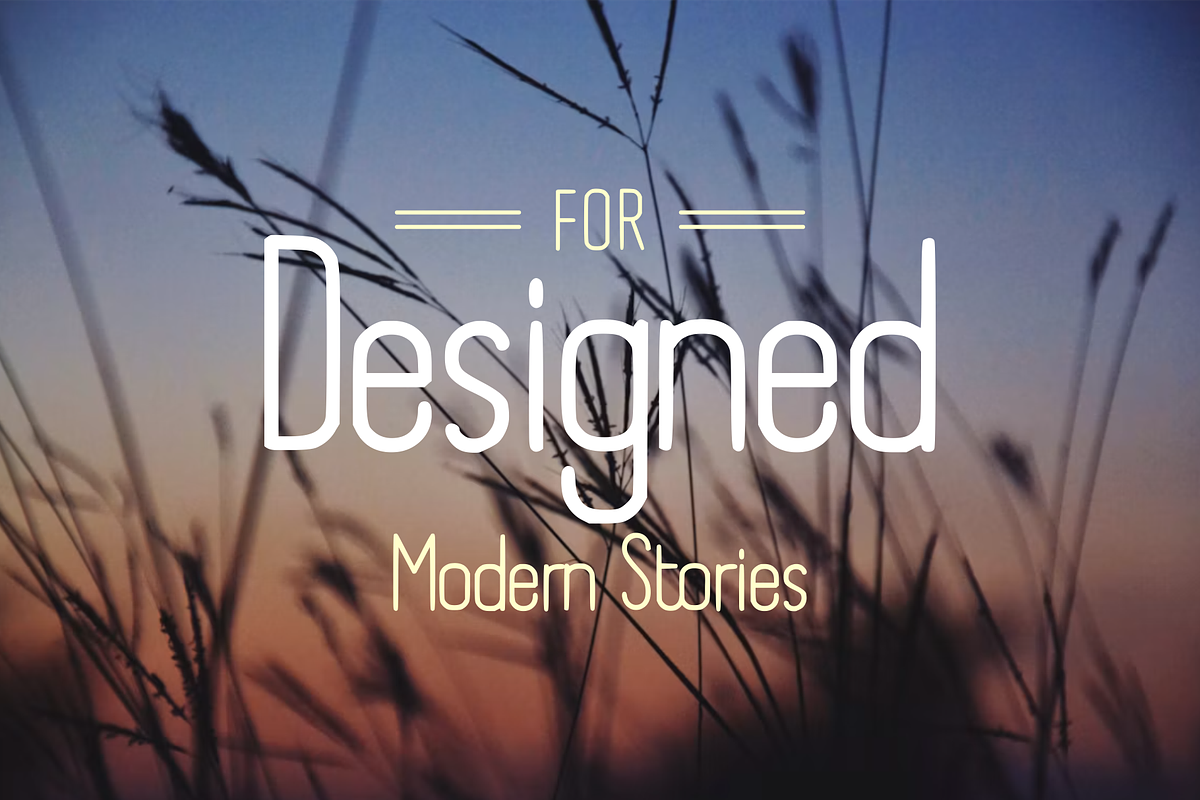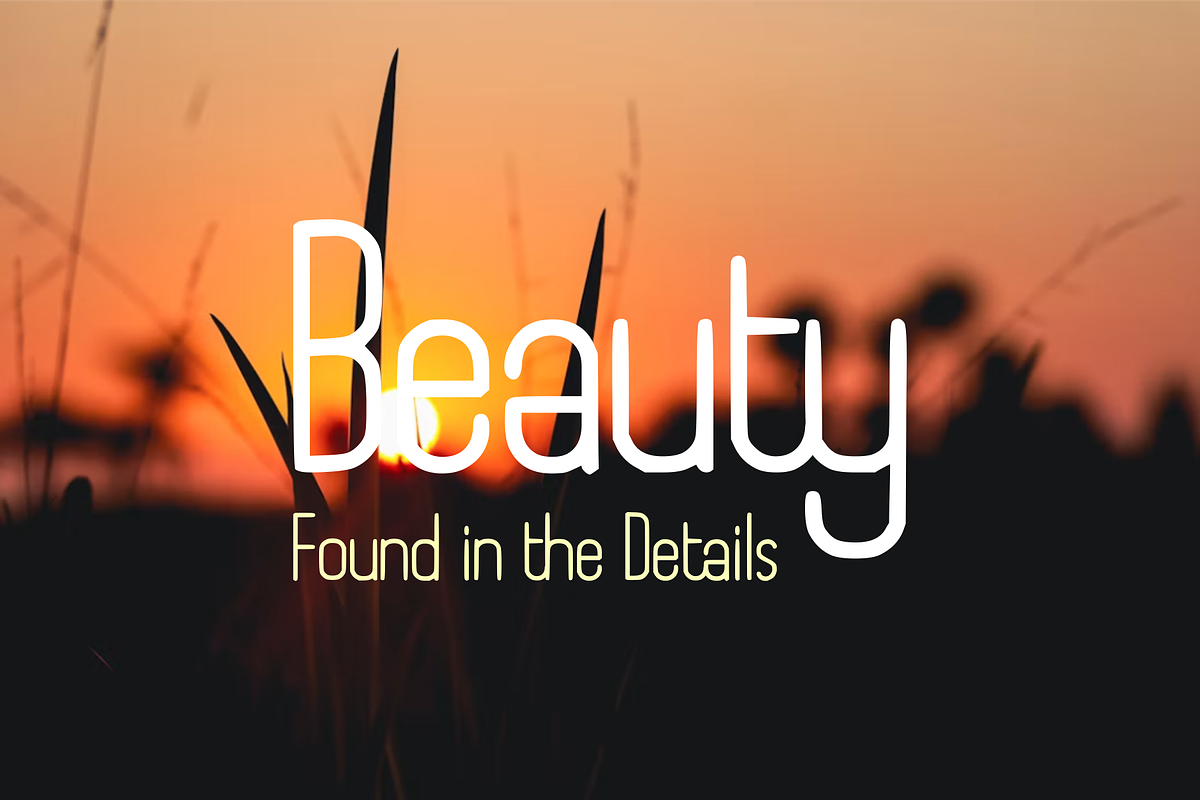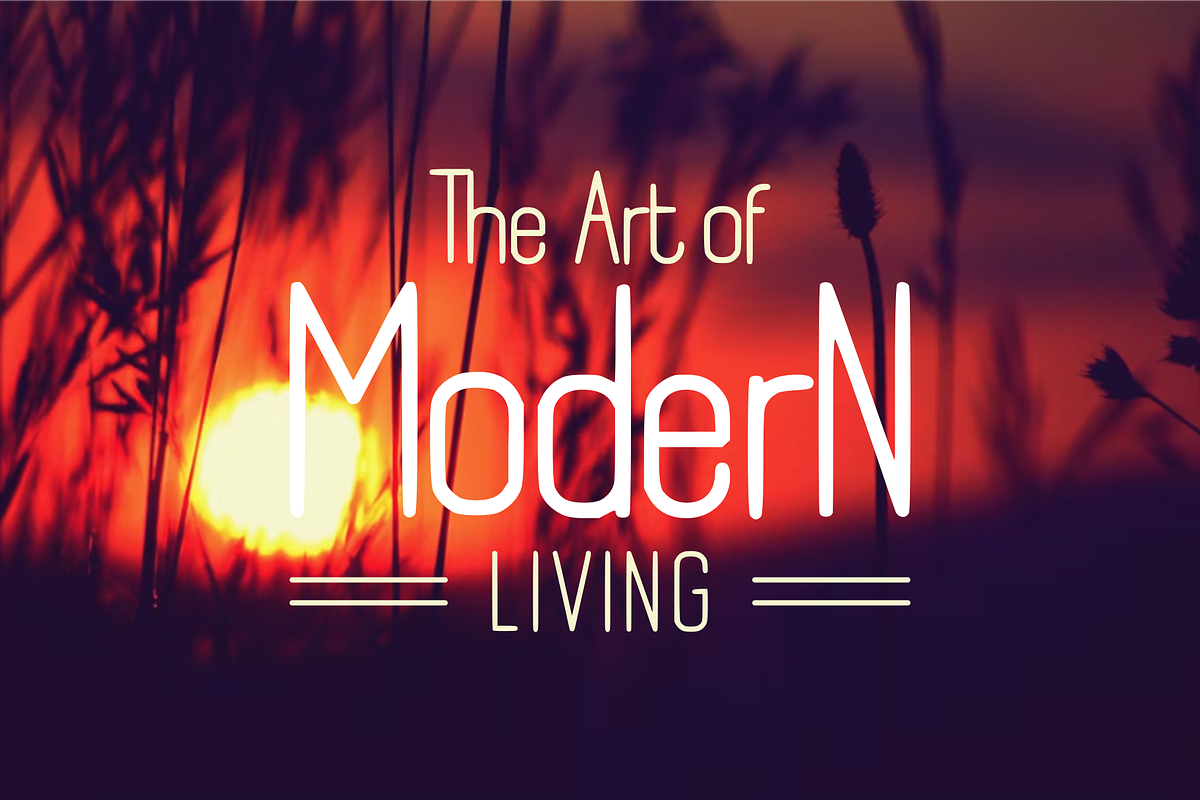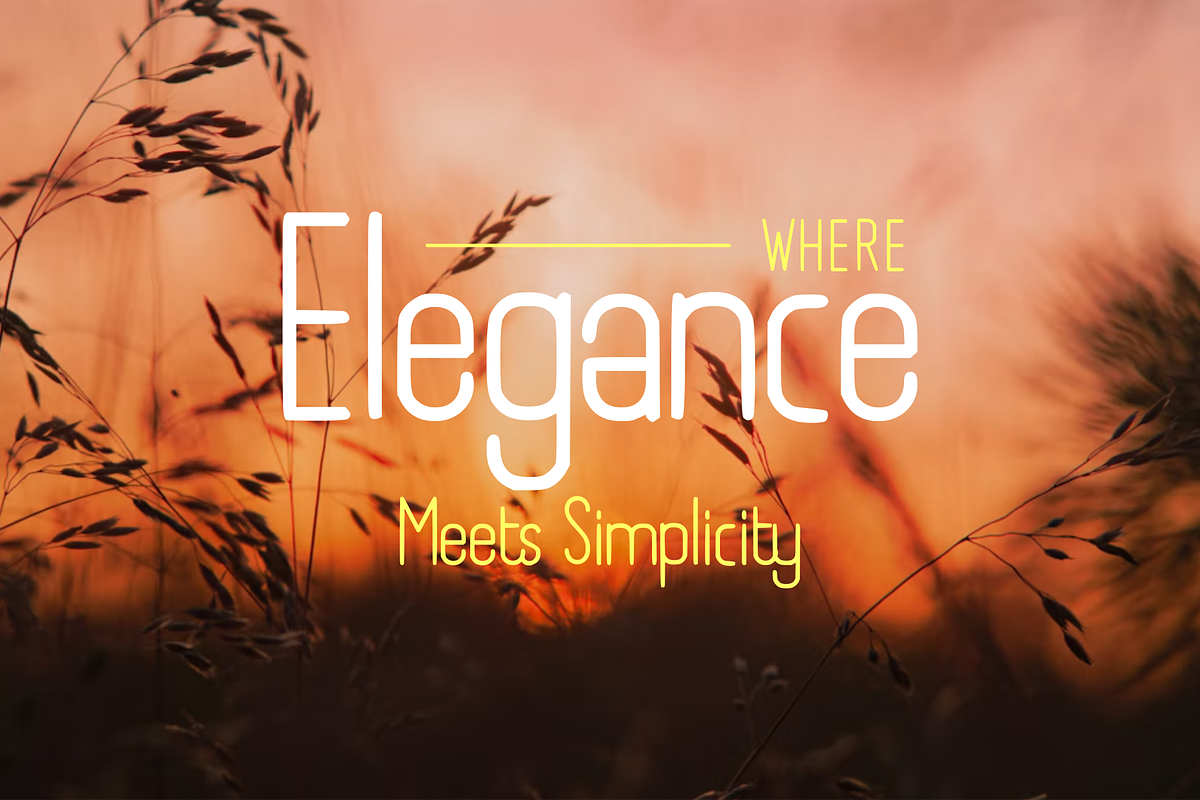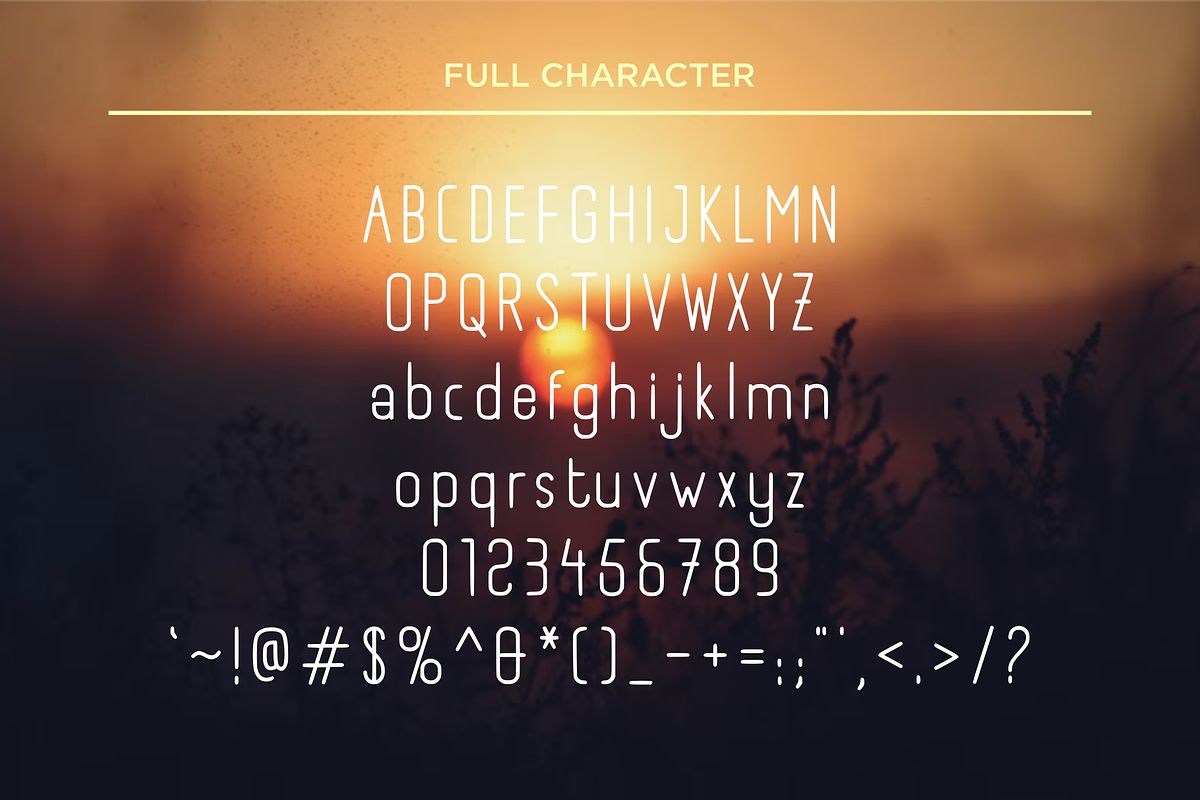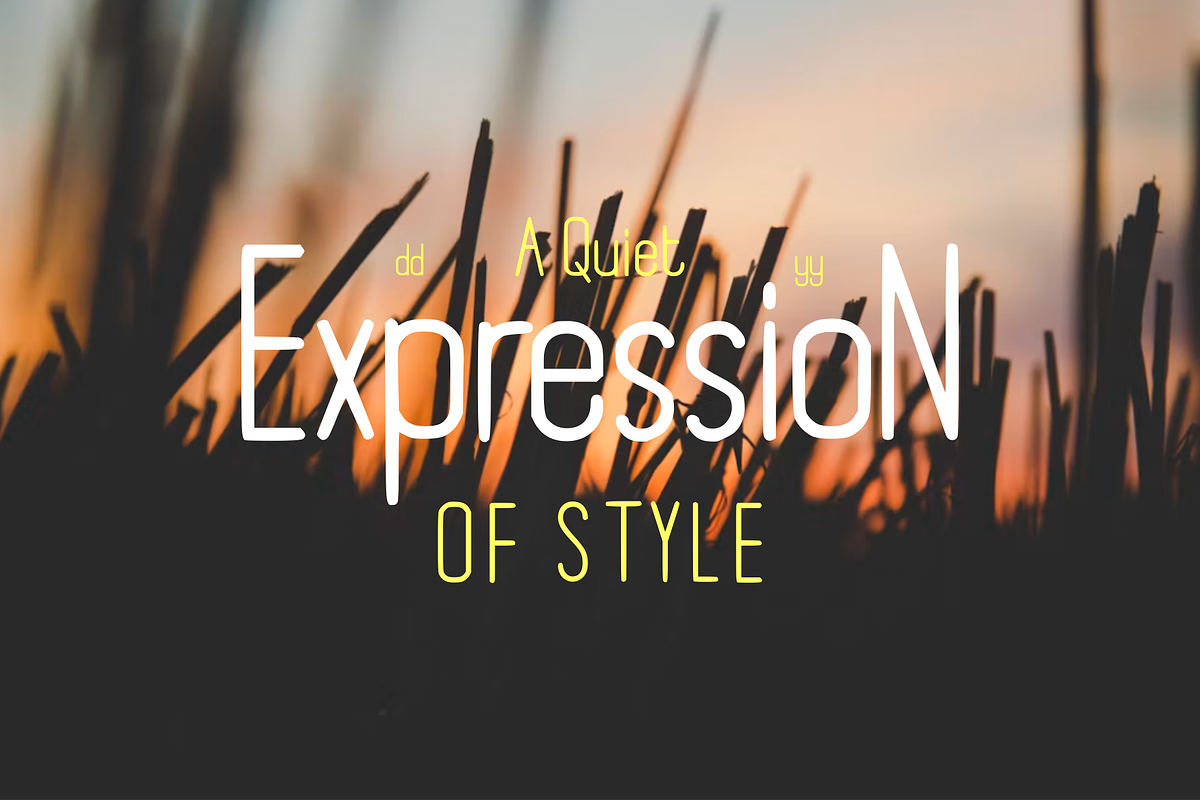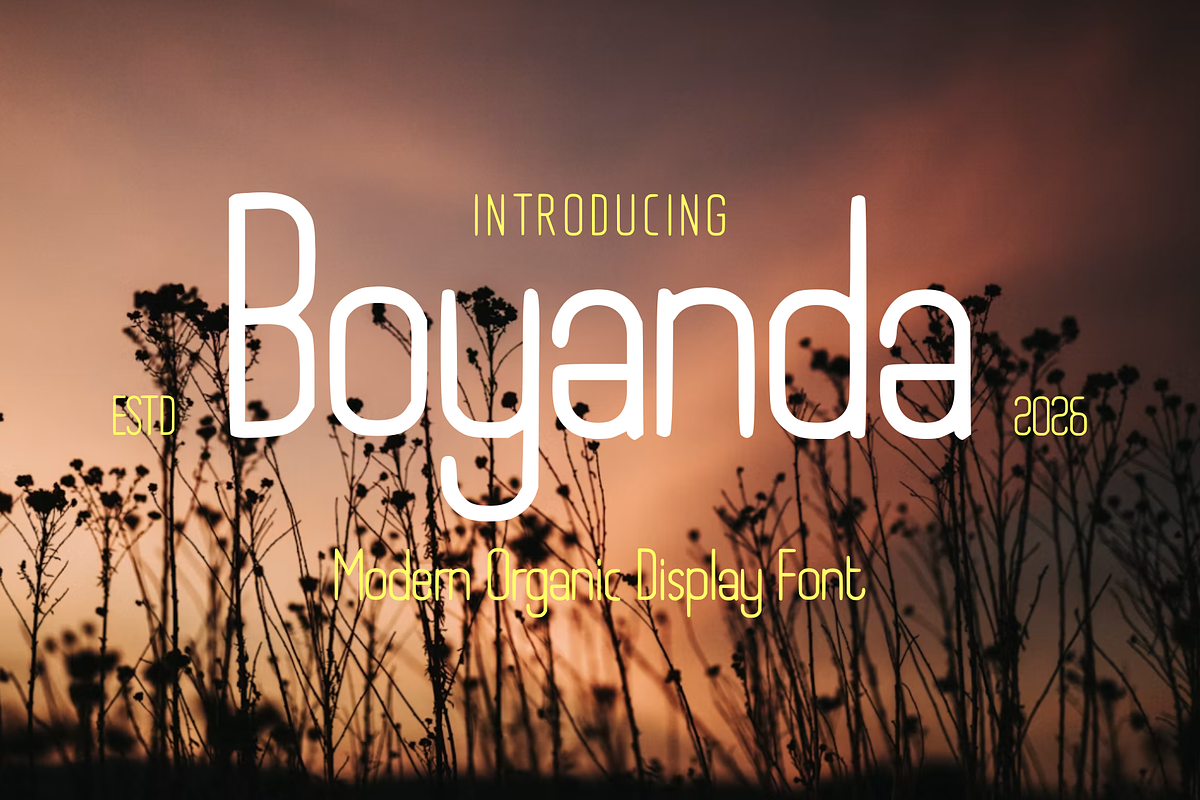
Boyanda - Modern Organic Display
Boyanda — Modern Organic Display Font
Boyanda is a modern organic display font designed with a distinctive combination of soft curves, elongated proportions, and playful irregular details. Its fluid letterforms create a natural yet contemporary personality, giving the typeface a fresh, artistic, and expressive appearance.
With its tall and elegant structure, Boyanda works beautifully for branding, editorial design, fashion, lifestyle projects, posters, packaging, social media graphics, invitations, and creative advertising. The organic shapes bring a human and approachable character, while the refined proportions keep the overall look modern and sophisticated.
Boyanda is especially suitable for designs that need a unique visual identity without feeling overly decorative. Its distinctive forms make headlines and short phrases instantly noticeable, while its smooth curves add an effortless, stylish quality.
Boyanda — Modern Organic Display Font is a great choice for designers looking to create contemporary visuals with a natural, artistic, and memorable typographic character.